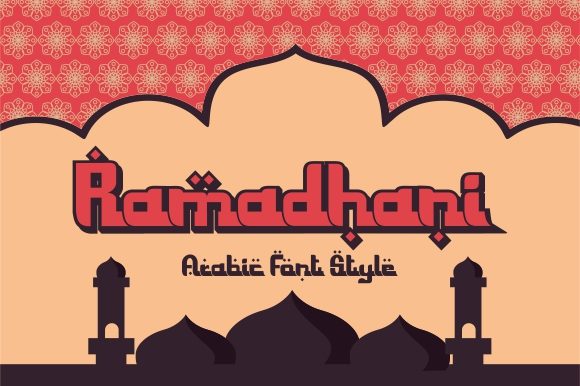
Ramadhani Font
Journey to the mystical land of authentic Arabic aesthetics with Ramadhani, the display font that emanates enchantment and intrigue. This captivating font draws inspiration from the rich tapestry of Arab culture, evoking a sense of wonder in every letterform. Whether you're designing captivating headlines or crafting elegant blocks of text, Ramadhani effortlessly adapts to your creative vision.
Adorn your digital creations with Ramadhani's exotic charm, transporting your audience to a realm of captivating storytelling. Its intricate details and fluid strokes add depth and elegance to every word, turning your designs into mesmerizing works of art. Whether it's a website, a print project, or an animation, Ramadhani's versatility knows no bounds.
Unleash your creativity and let Ramadhani's allure captivate your audience. Its meticulously crafted characters dance across the screen, evoking a sense of cultural heritage and artistic flair. Ramadhani is not just a font; it's a gateway to a world of captivating narratives, inviting your audience to embark on an unforgettable journey.
Experience the splendor of Arabic calligraphy with Ramadhani, a font that transcends linguistic boundaries and speaks to the soul. Its distinct letterforms, reminiscent of ancient manuscripts, add a touch of timeless sophistication to your designs. Let Ramadhani be your artistic compass, guiding you through the labyrinth of creativity and enabling you to craft designs that resonate with authenticity and grace.